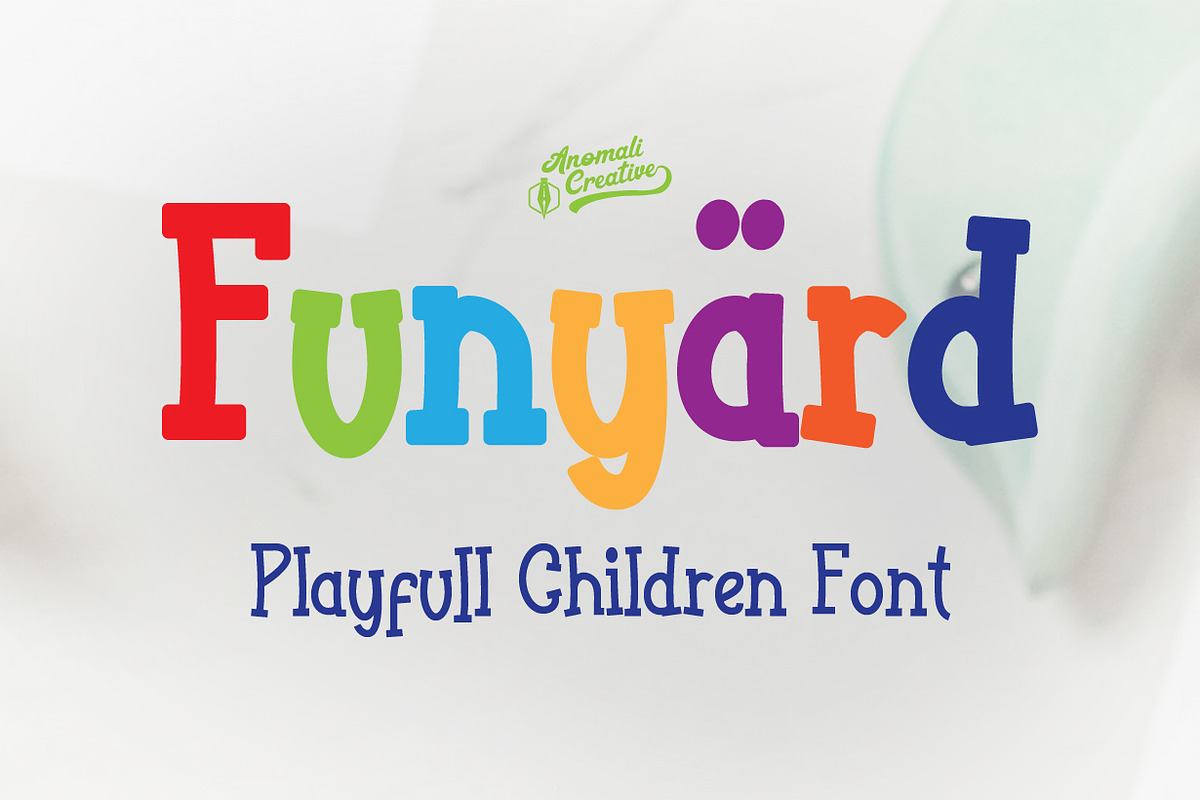
Funyard - Playful Cute Kids Font Free Download is a cheerful and bubbly typeface designed to capture the imagination of children and parents alike. With its rounded edges, whimsical letterforms, and friendly vibe, this font is perfect for kids' books, birthday invitations, toy packaging, classroom materials, and more. It brings a sense of joy and playfulness to any design it touches.
Whether you're a teacher creating engaging learning tools or a designer working on a children’s brand, Funyard - Playful Cute Kids Font Free Download adds a delightful, colorful touch that kids adore. This font is easy to read and fun to look at, making it ideal for young audiences. Remember, while you can test it for free, any commercial use requires a proper license. Make your next project smile with the magic of Funyard!